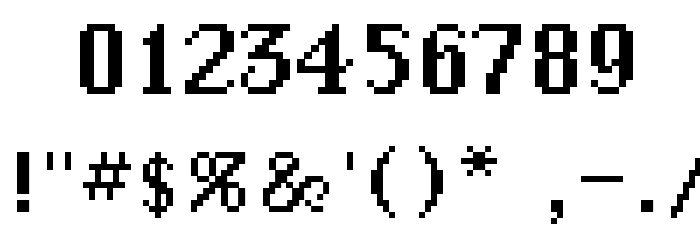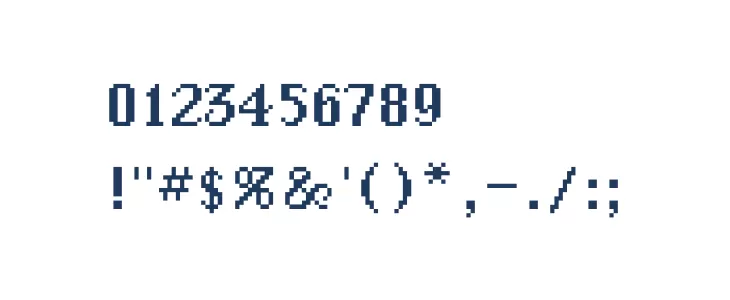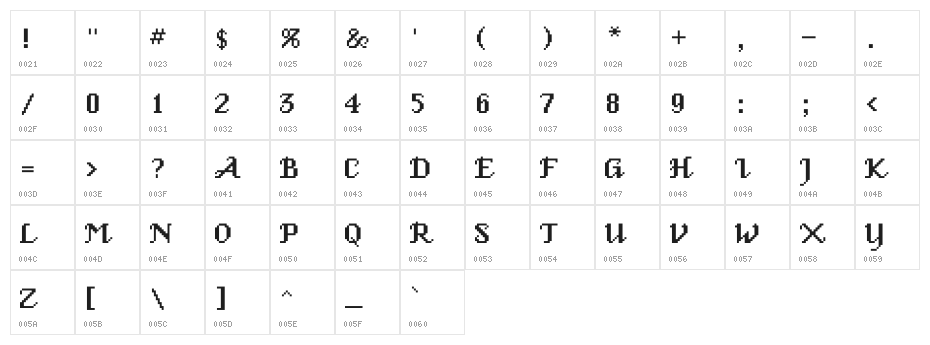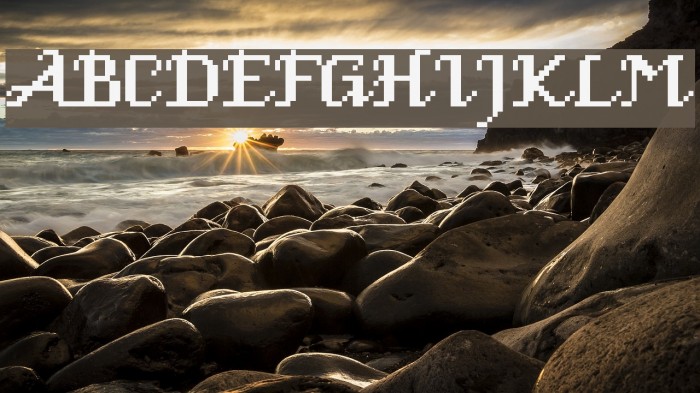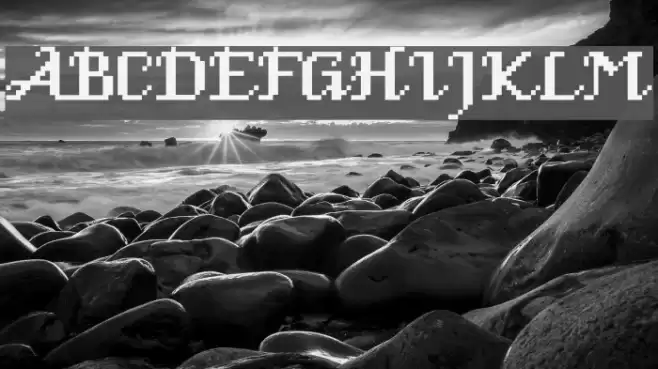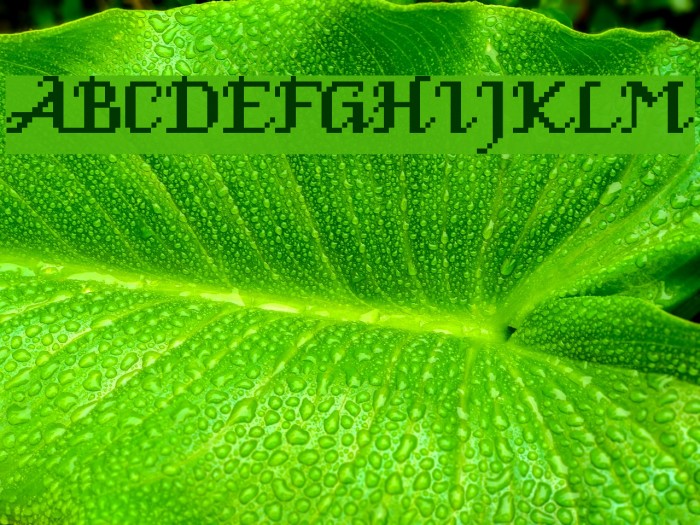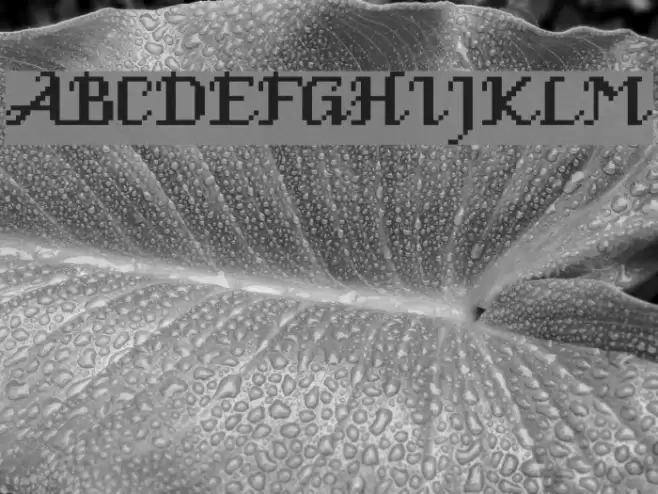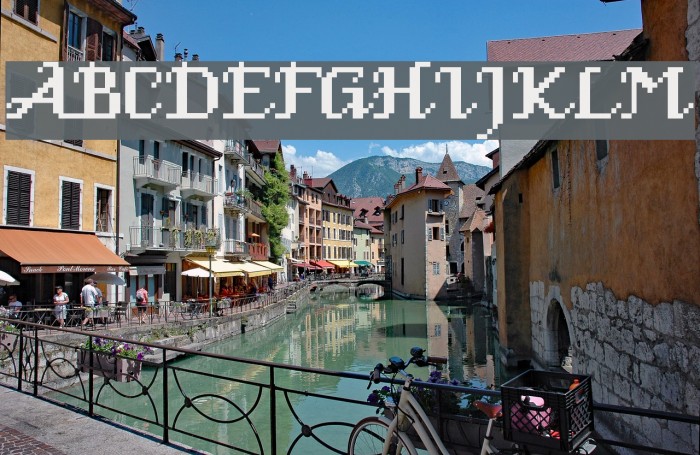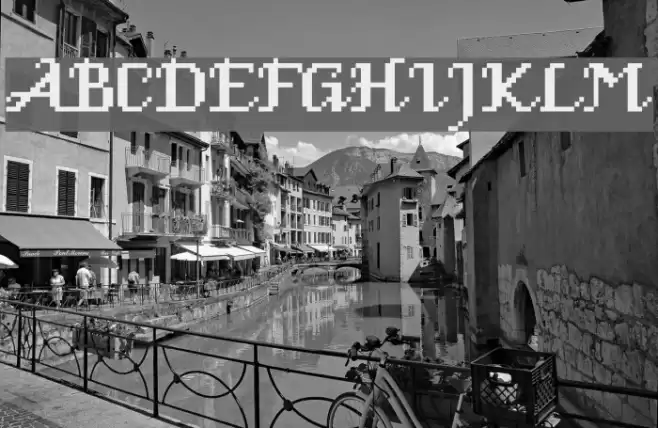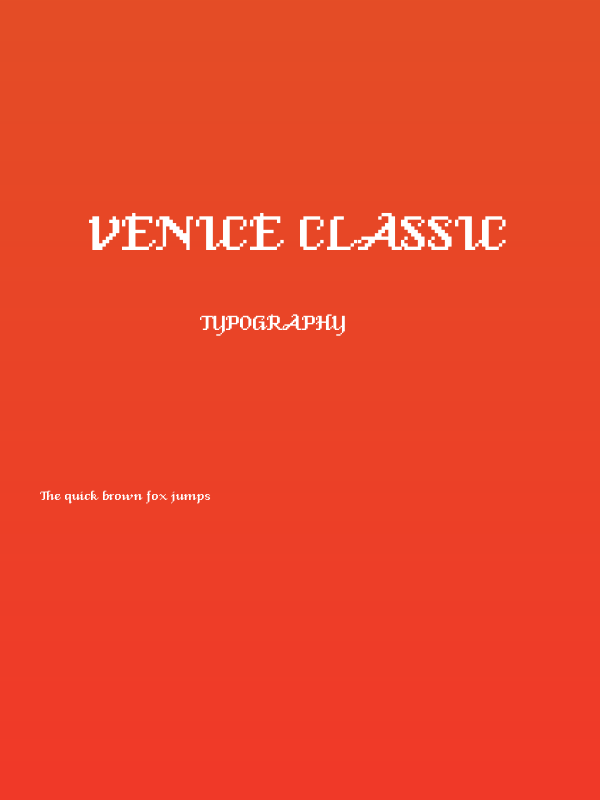
Venice Classic Font
Venice Classic Description
This font exudes a classic elegance with its calligraphic style, featuring ornate and flowing letterforms that evoke a sense of sophistication and tradition. The uppercase letters are particularly elaborate, with intricate curves and flourishes that add a decorative touch. The lowercase letters maintain a consistent style, offering a harmonious blend of readability and artistic flair. The numerals are clear and well-defined, complementing the overall aesthetic. Special characters are thoughtfully designed, ensuring they integrate seamlessly with the rest of the font. This typeface is ideal for projects that require a touch of class and historical charm.